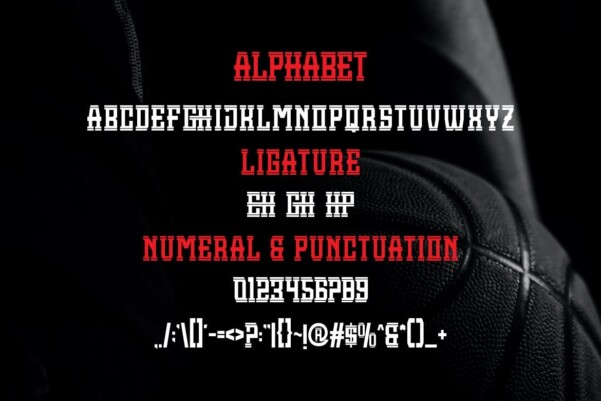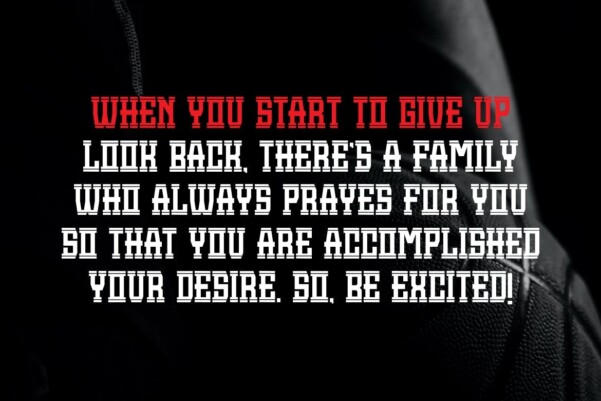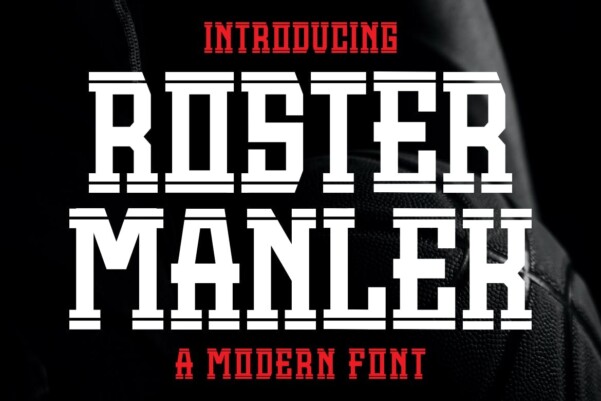
Roster Manlek Font
ROSTER MANLEK Font – A Modern Font is a modern and authentic font. Perfect for professional and product branding needs, this font is suitable for any branding project such as quotes, logos, blog headers, posters, ribbons, letters, invitations, stationery, etc… Designed to be versatile and flexible that can be used on a variety of projects and media. extraordinary in a variety of contexts.